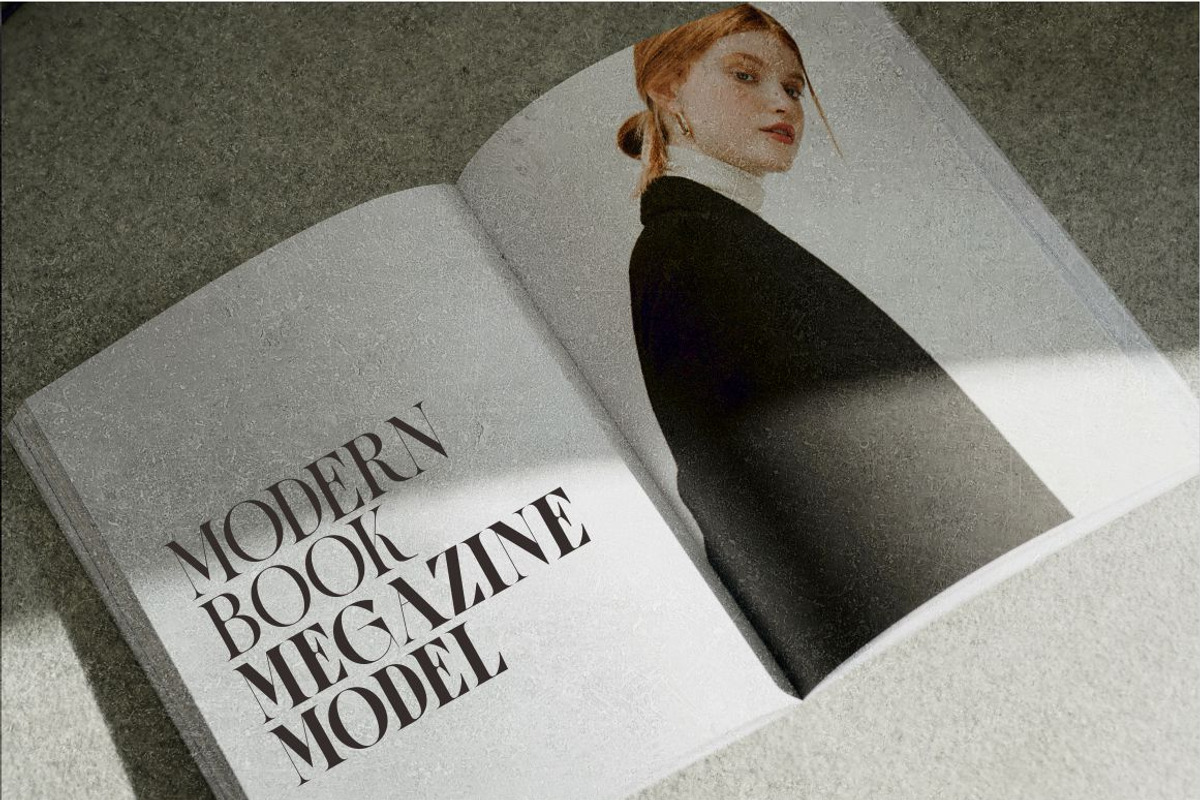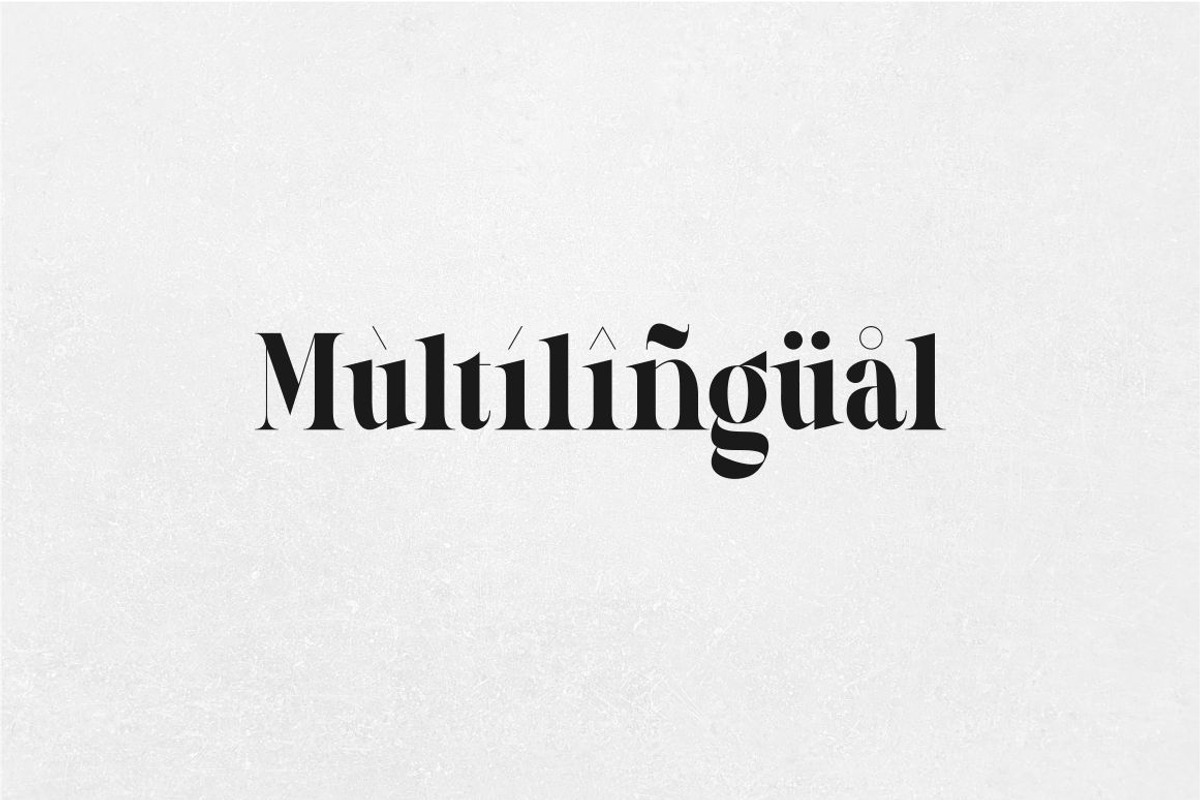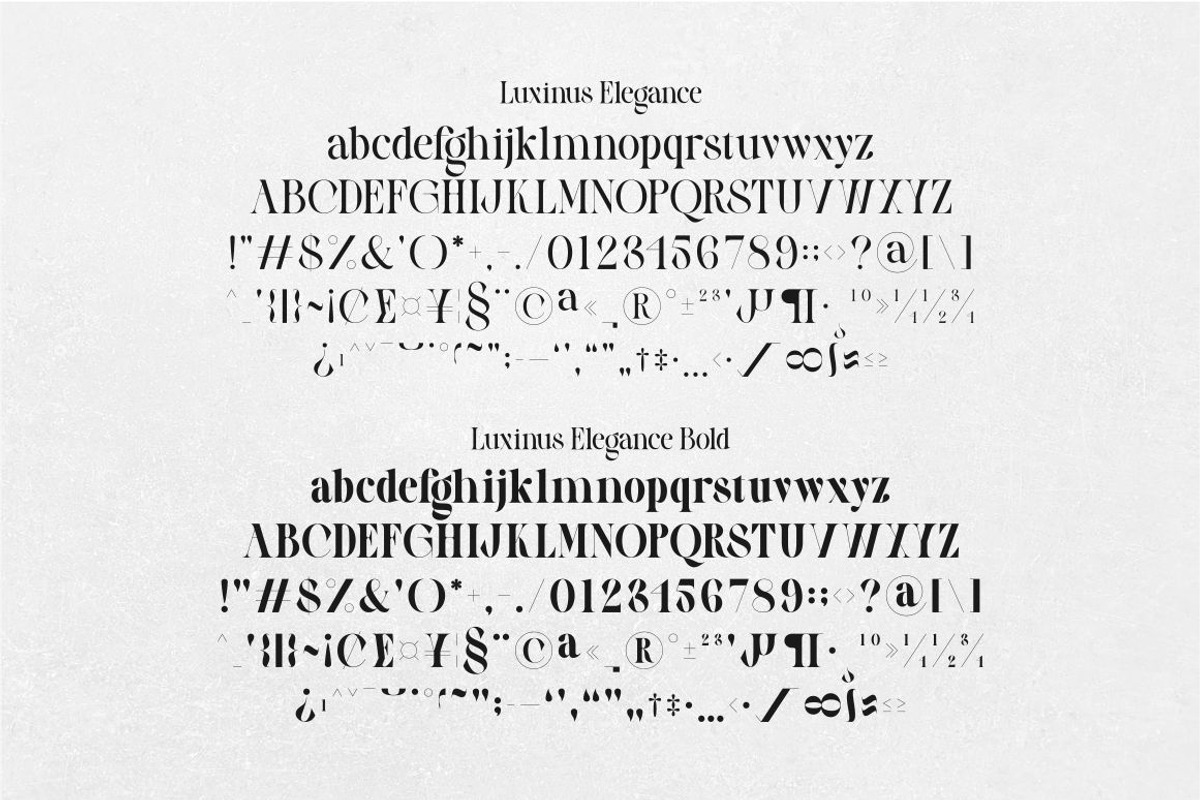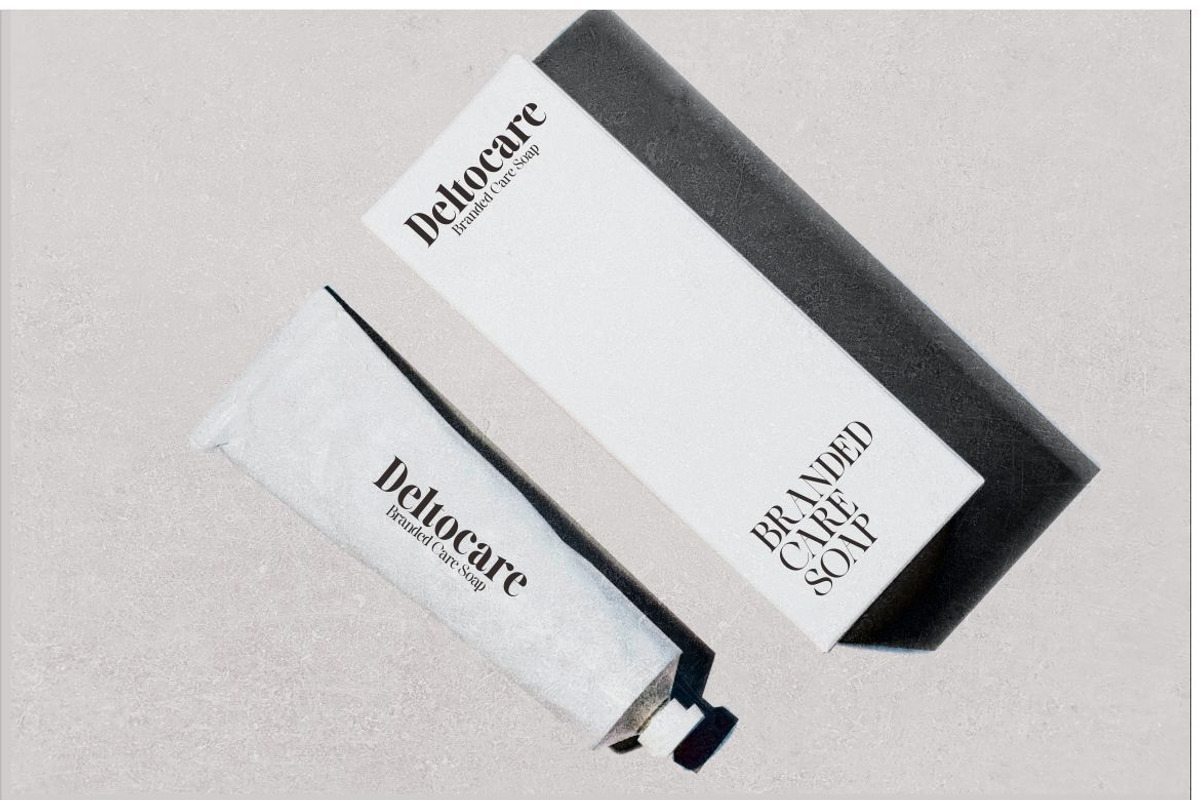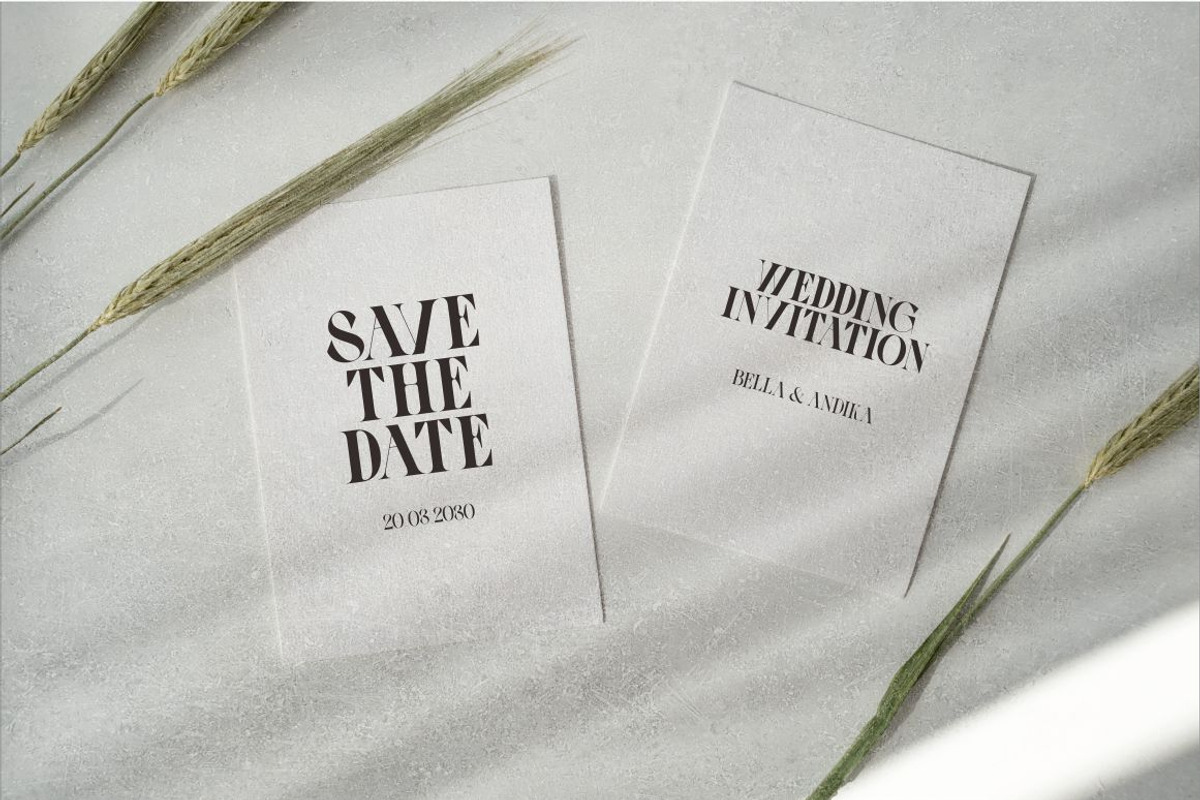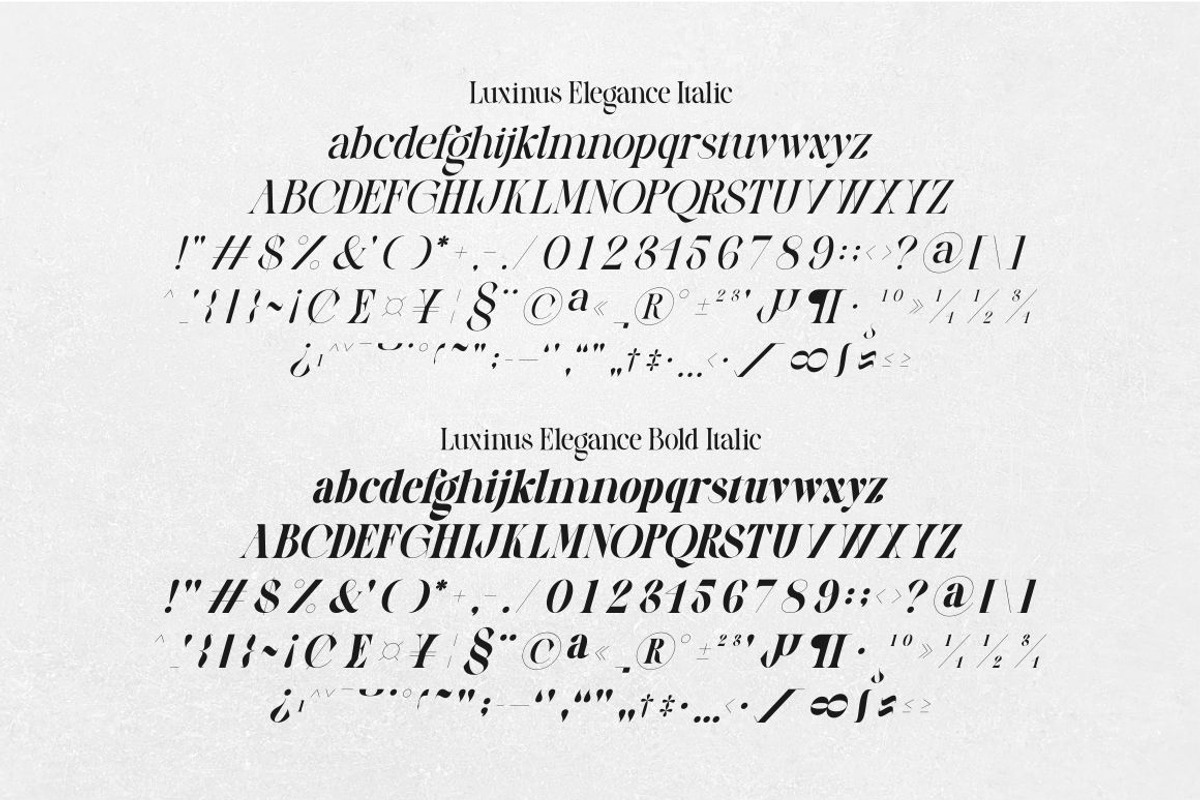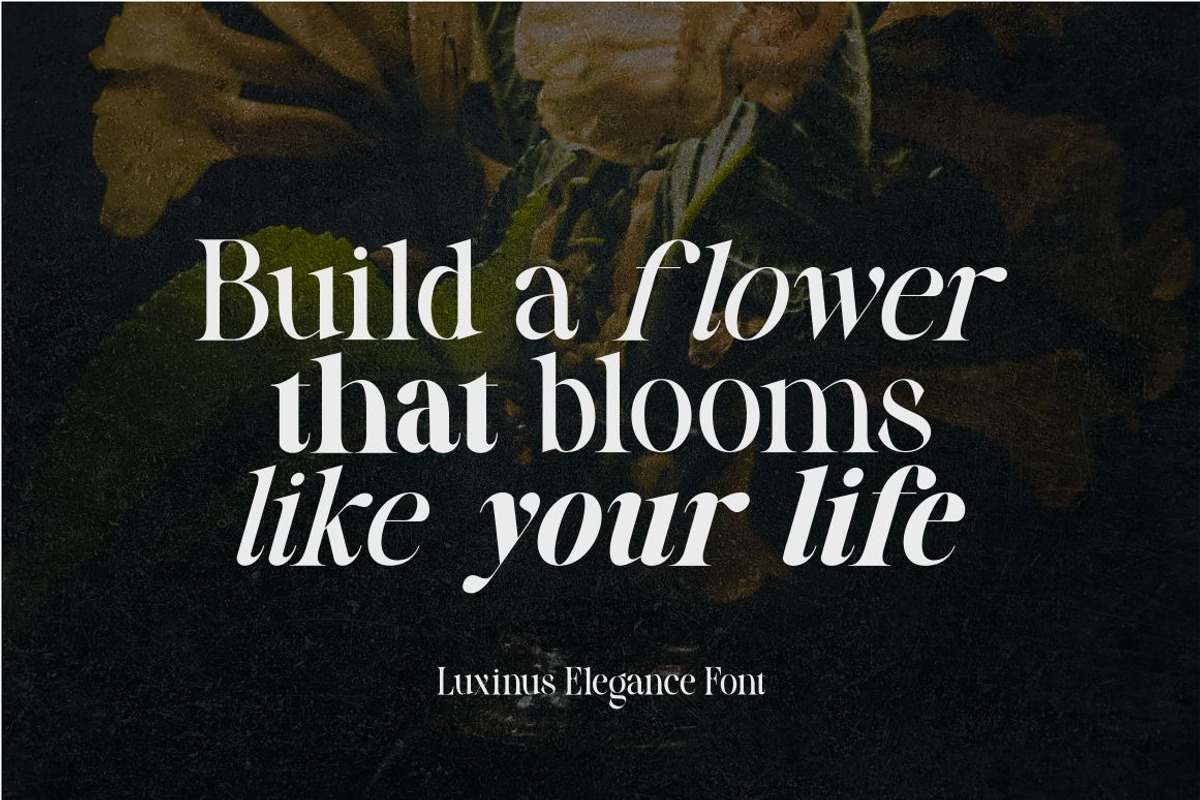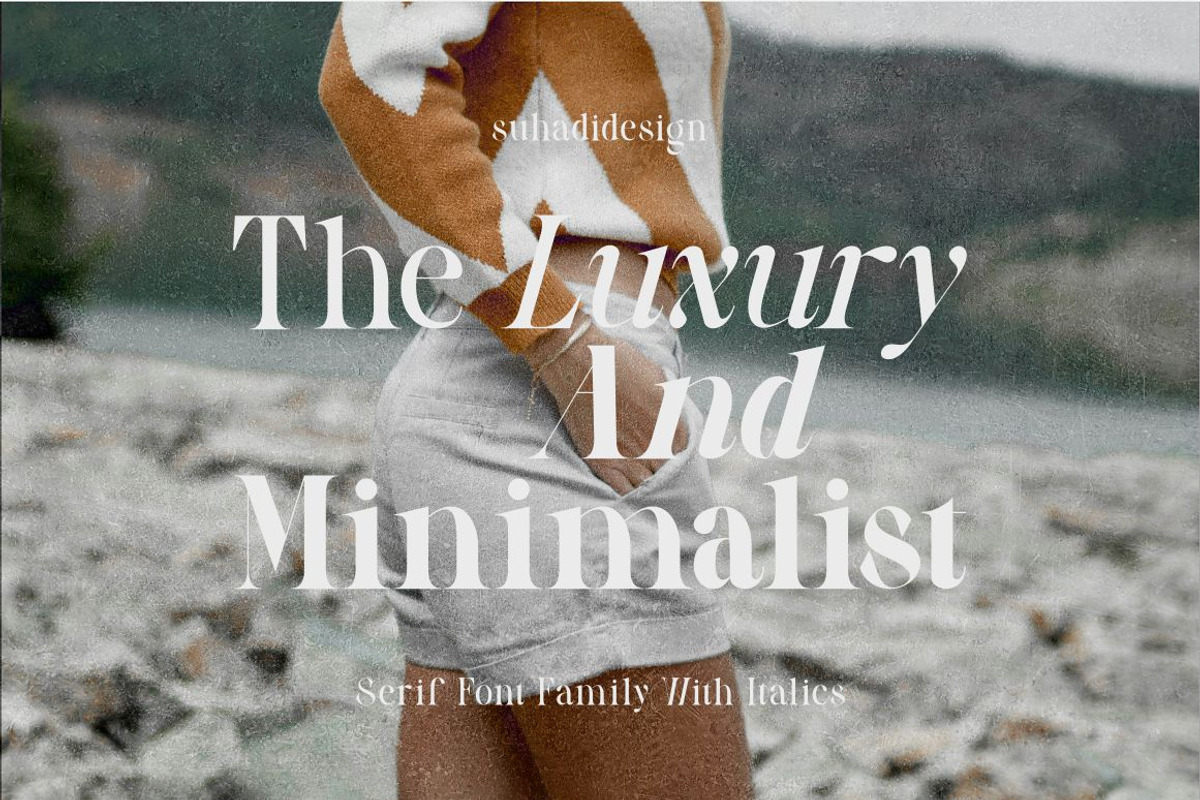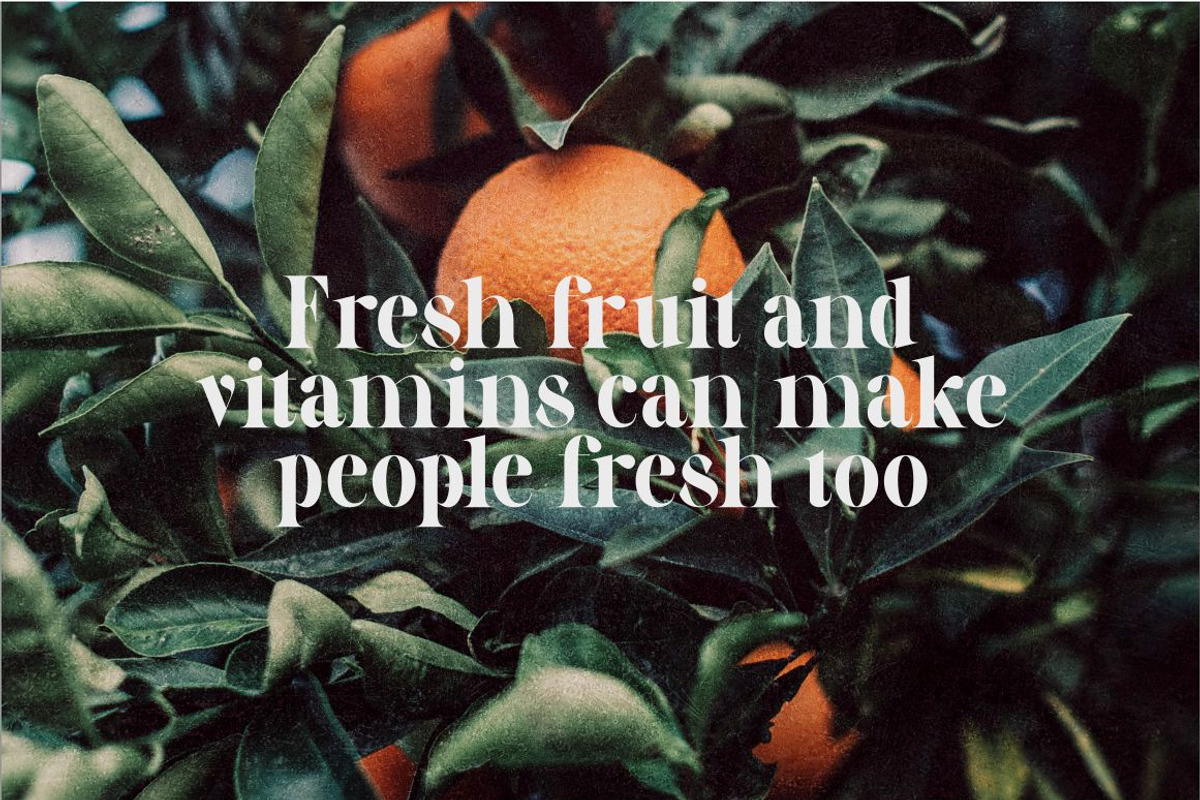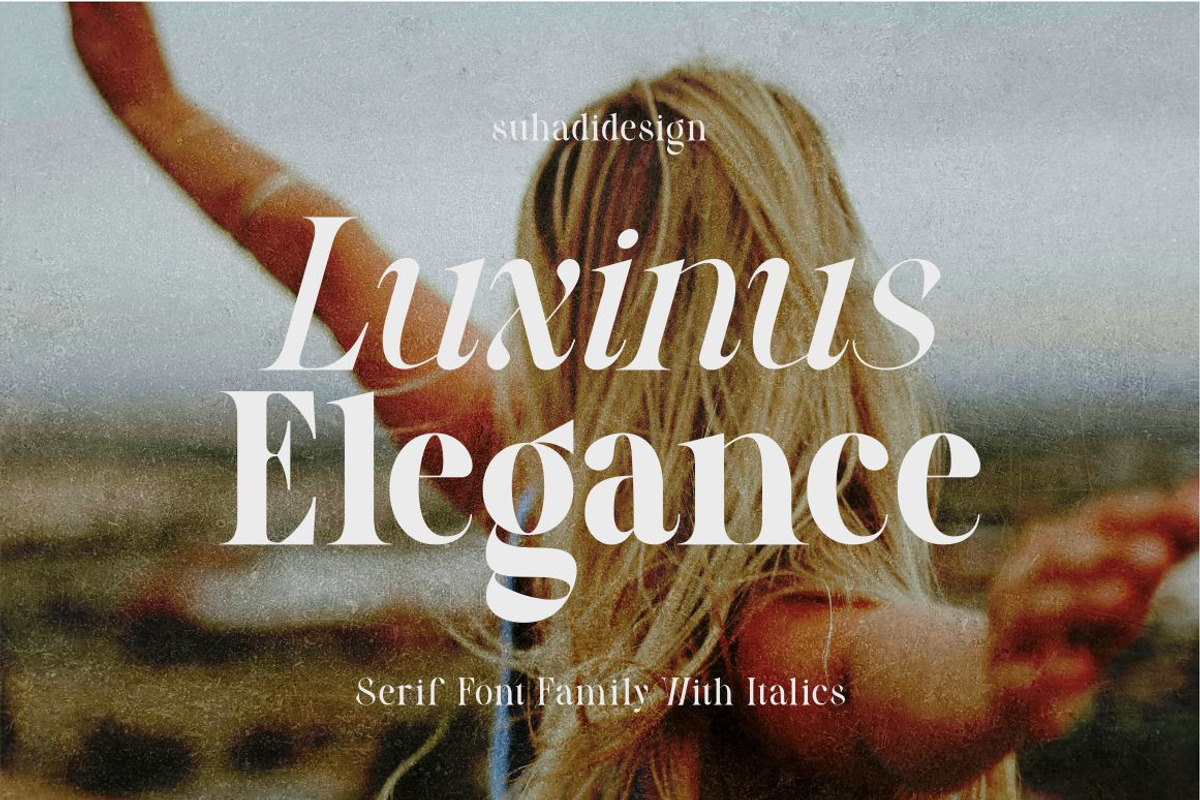
Luxinus Elegance Serif Family
Luxinus Elegance Serif Family With Italic Font
Hi ladies and gentlemen! The latest stylish modern font has arrived which is a font that many ladies and gentlemen are looking at. Namely the Luxinus Elegance font. The Luxinus Elegance font is a stylish and elegant serif family font. With a modern, elegant model, there are 4 families available, namely Luxinus Elegance, Luxinus Elegance Italic, Luxinus Elegance Bold, and Luxinus Elegance Bold Italic, which are market favorites. We keep this font looking good, classy, stylish. Luxinus Elegance Font is a great choice for magazines, design, books, publications, branding, brand names, business cards, social media, classy design, newspaper, branding, beauty and other projects. Luxinus Elegance Font is here to improve the quality of your designs.
Feature:
• Lowercase • Uppercase • With 4 Families • Multilingual Support • Numerical • Punctuation